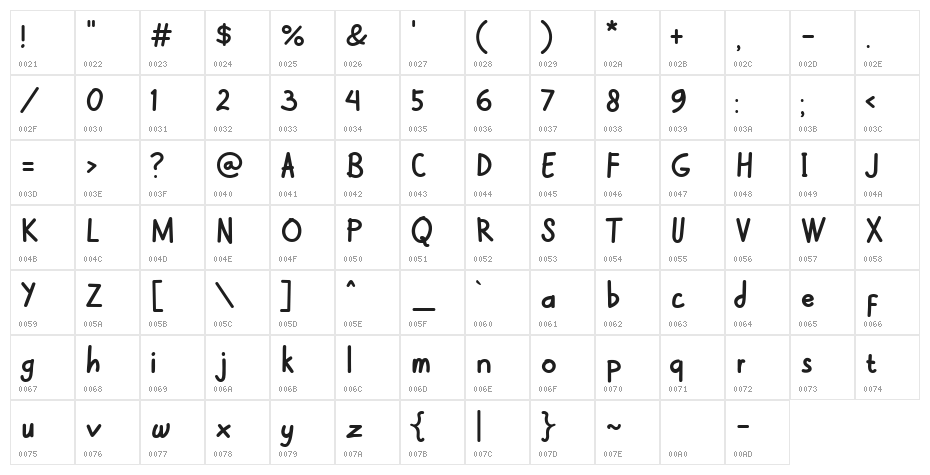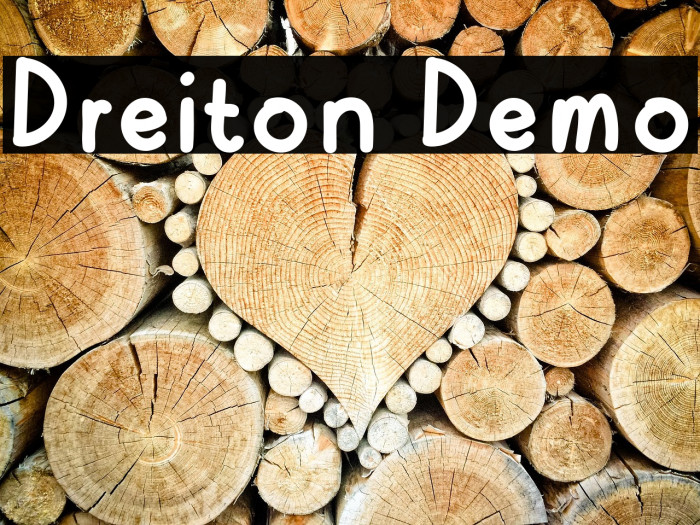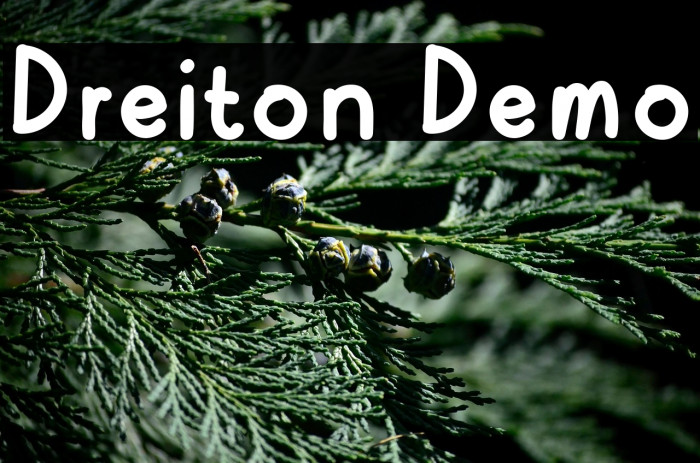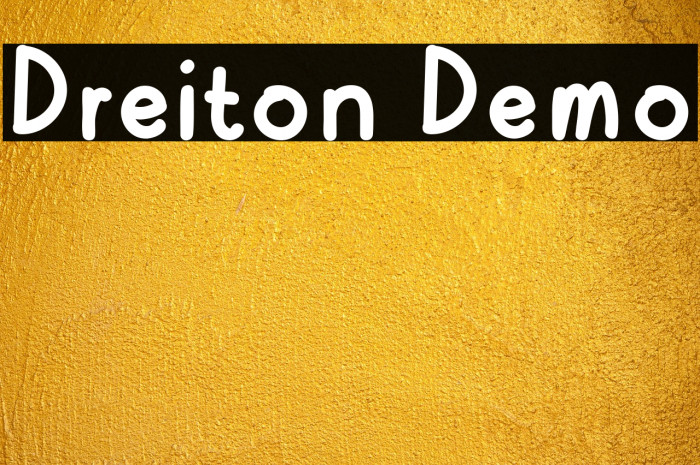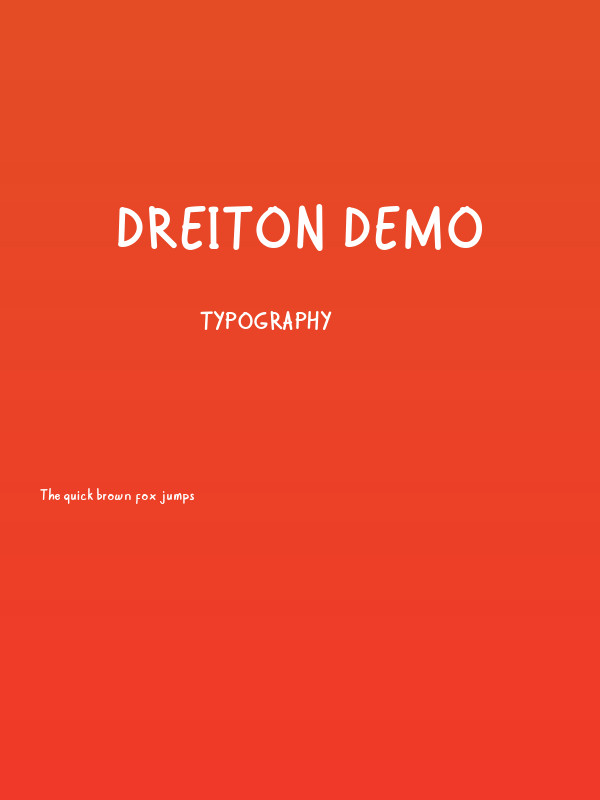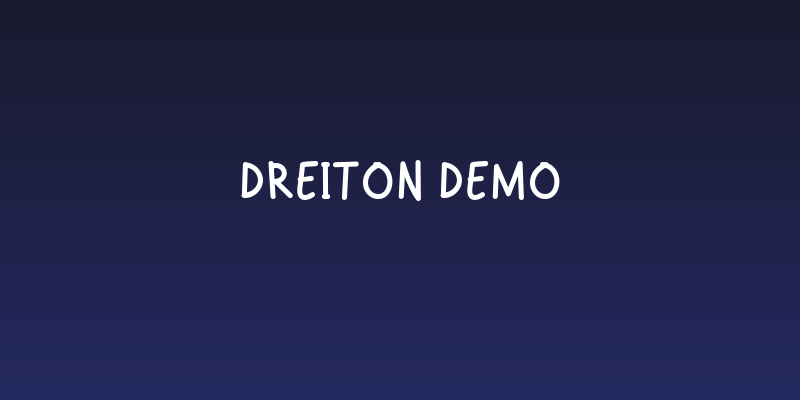
Dreiton Demo Font
Dreiton Demo Description
This playful and informal font features a handwritten style with rounded edges and a casual appearance. The letters are slightly uneven, giving it a natural and organic feel. The uppercase and lowercase characters maintain a consistent style, with a slight slant that adds to the relaxed vibe. Numbers and special characters are designed to match the overall aesthetic, making it versatile for various uses. The font's friendly and approachable look makes it suitable for projects that aim to convey warmth and creativity.
| Proposed Projects | Ideal for children's books, greeting cards, informal invitations, and creative branding. |